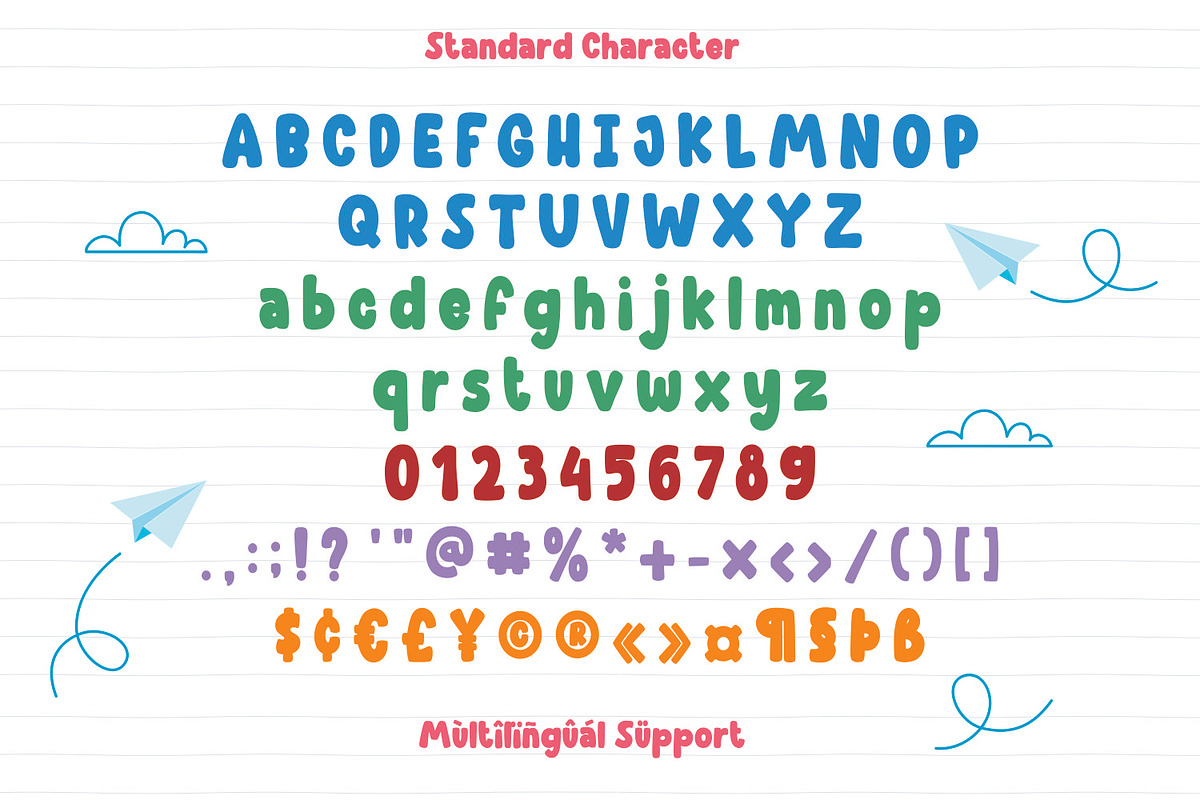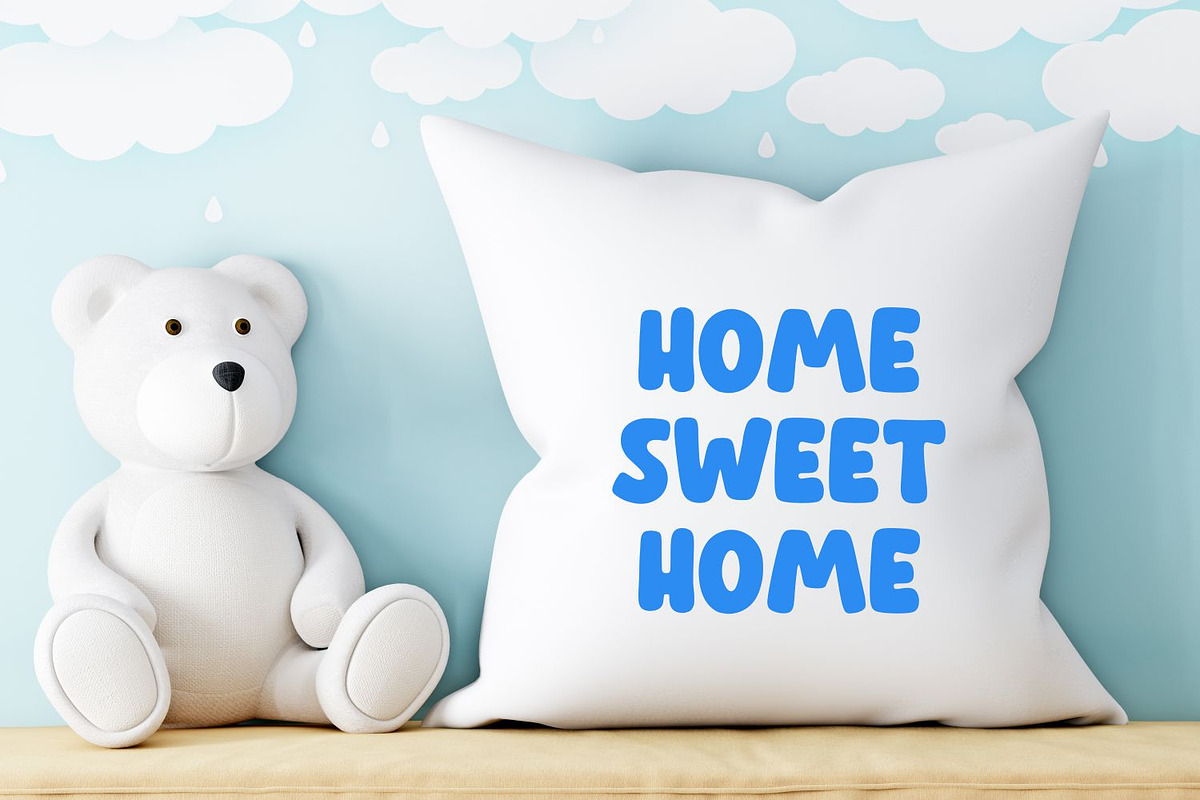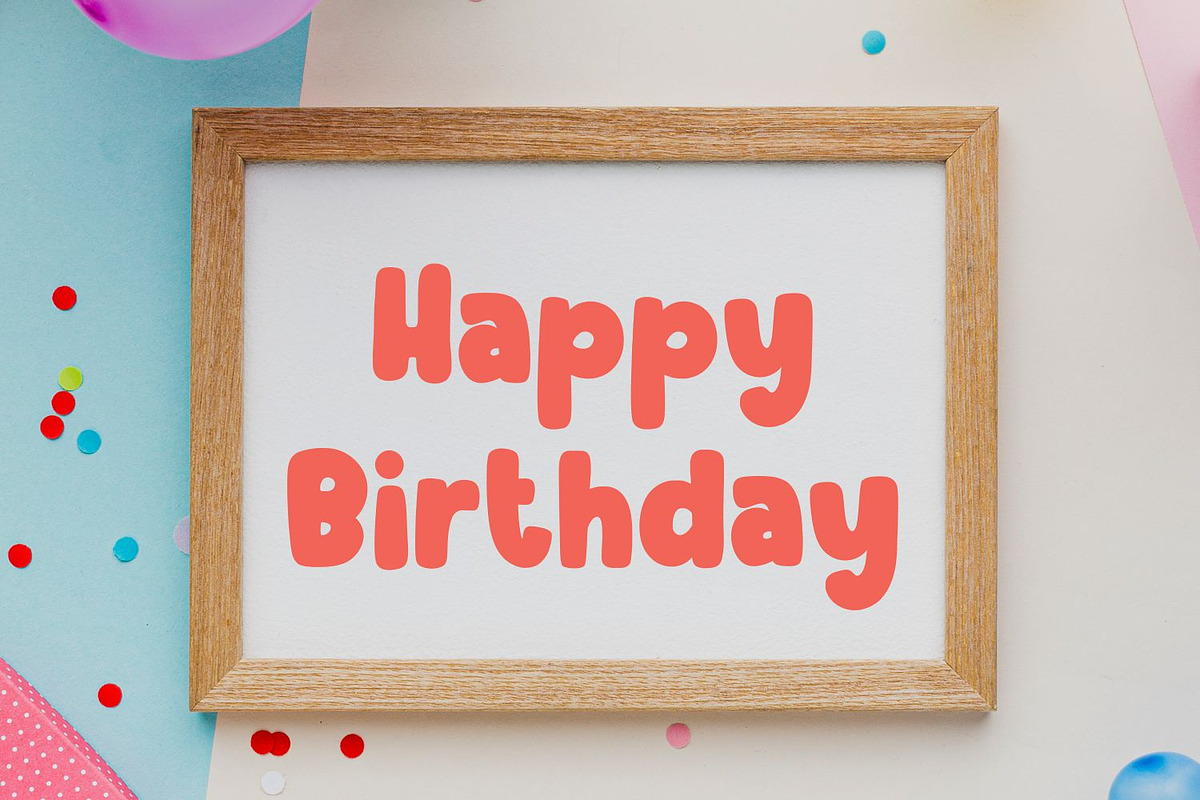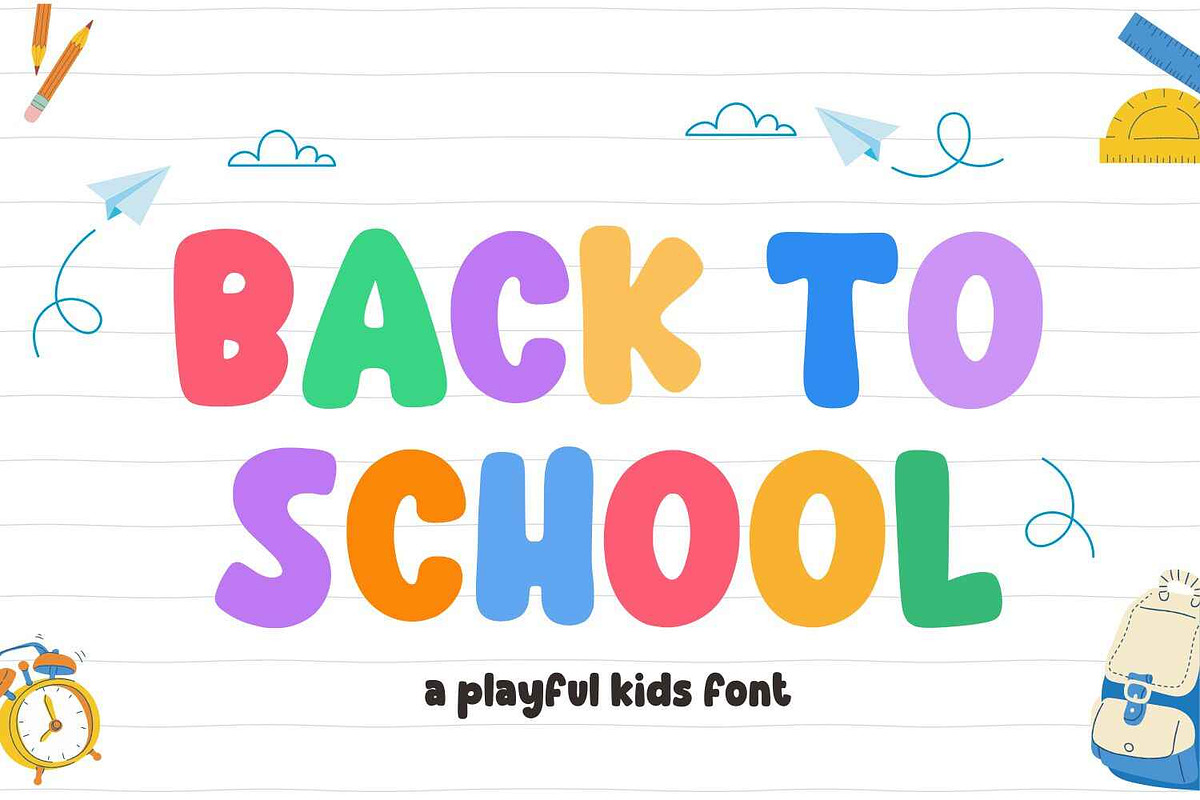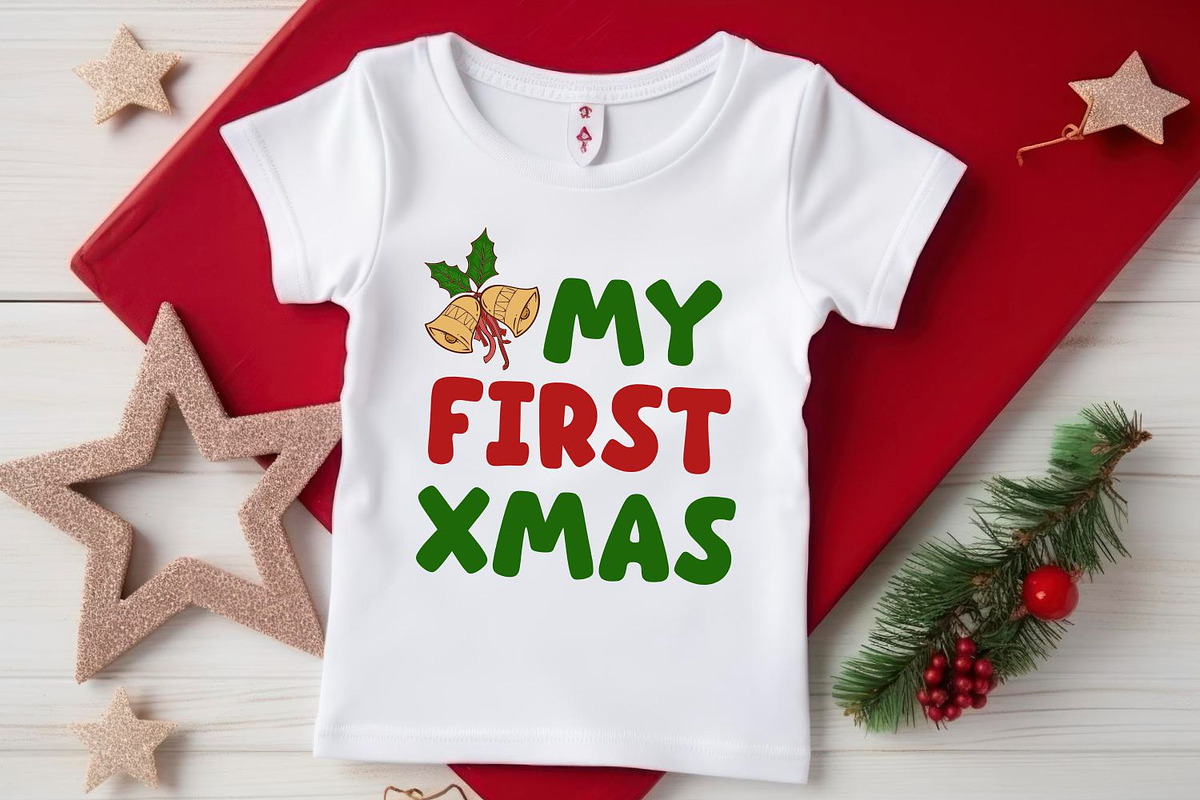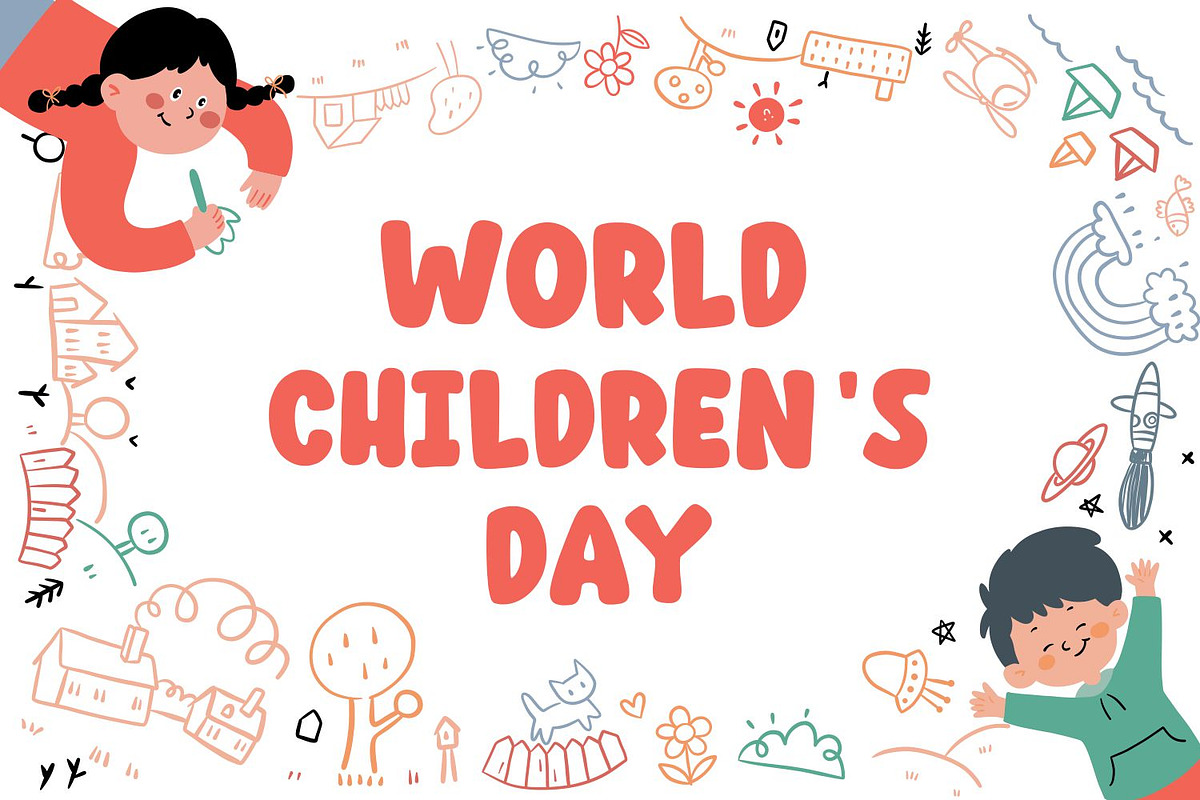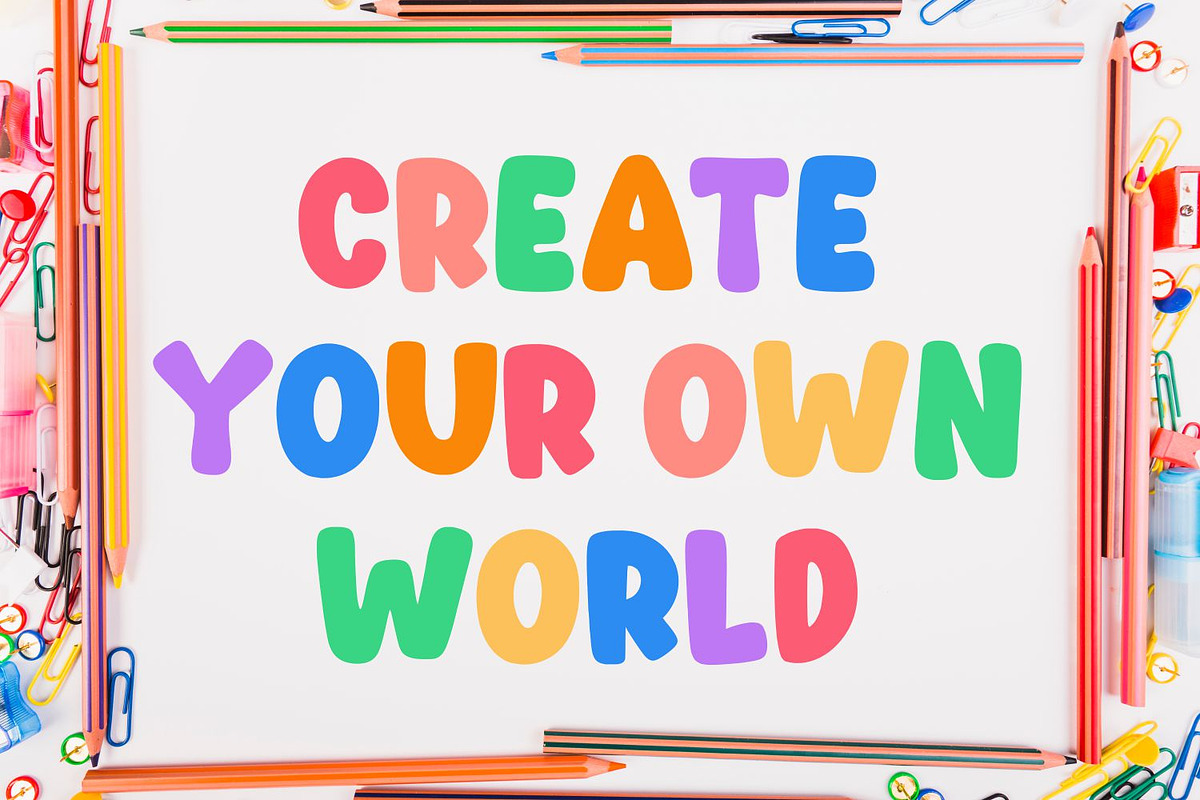
BACK TO SCHOOL
Introducing the "Back To School" font, a fun and cute display font perfect for all your back-to-school themes! Designed with the playful spirit of chalkboard drawings, this font is ideal for educational materials, children's handwriting, school graphics, and more. Its delightful style brings a cheerful vibe to any project, making learning and crafting an enjoyable experience.
Whether you're preparing for Easter, Thanksgiving, Christmas, or simply crafting with Cricut or embroidery, the "Back To School" font adds a whimsical touch to your designs. This versatile font is perfect for creating SVG files, unique crafts, festive decorations, and personalized lettering. Its charming appearance makes it a favorite among teachers, parents, and crafters, inspiring creativity and joy in every use.
Don't wait to transform your projects with the "Back To School" font! Add a sprinkle of fun and cuteness to your classroom, crafts, and holiday preparations. Let this adorable display font bring your ideas to life and make every project a delightful success. Embrace the joy of learning and crafting with the "Back To School" font today!
- Fonts include multilingual support